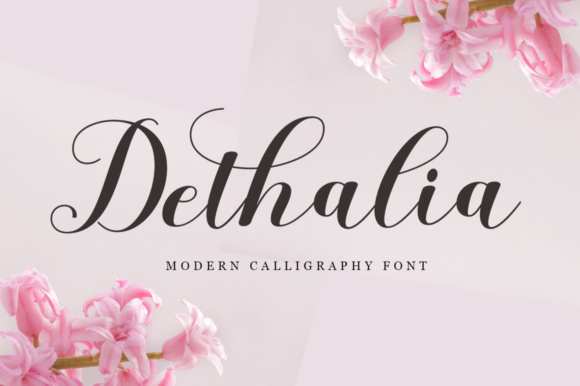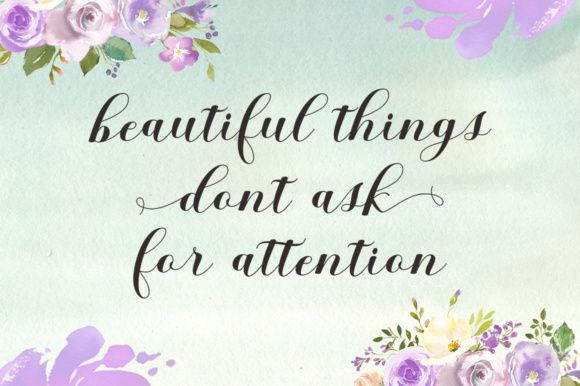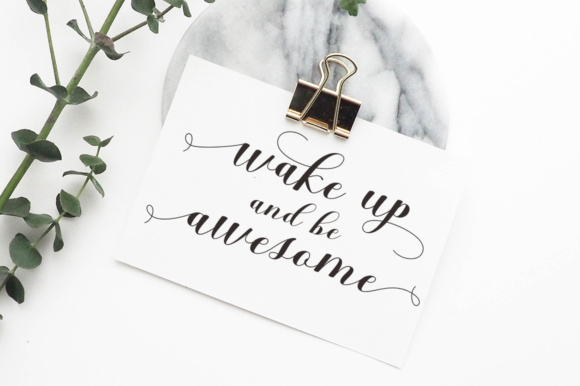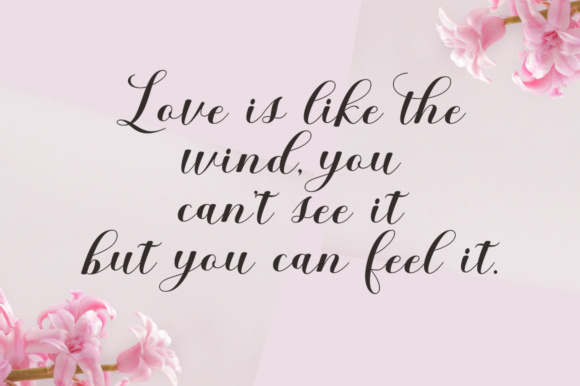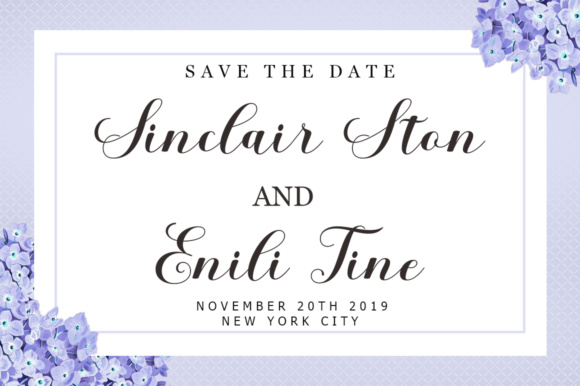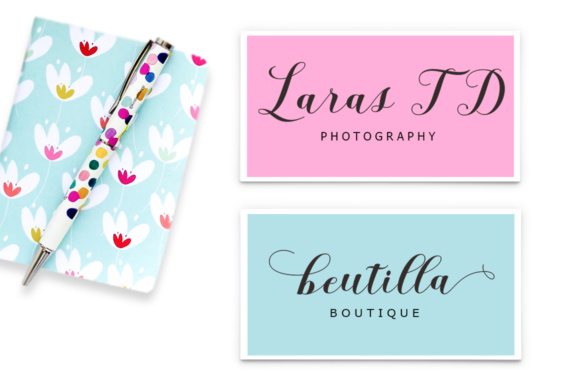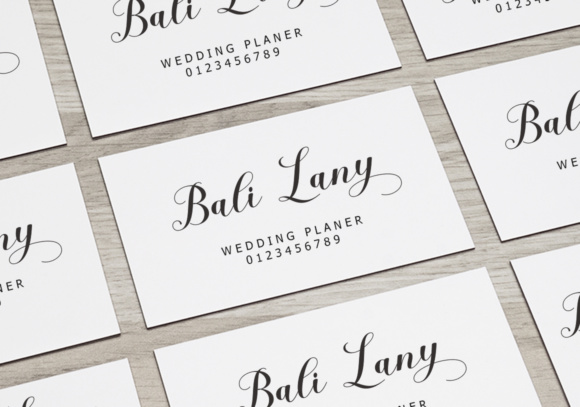
Dethalia Script Font
About Dethalia Script Font
The Dethalia Script is a modern calligraphy font. It has a casual and pretty style and contains lots of beautiful swashes.